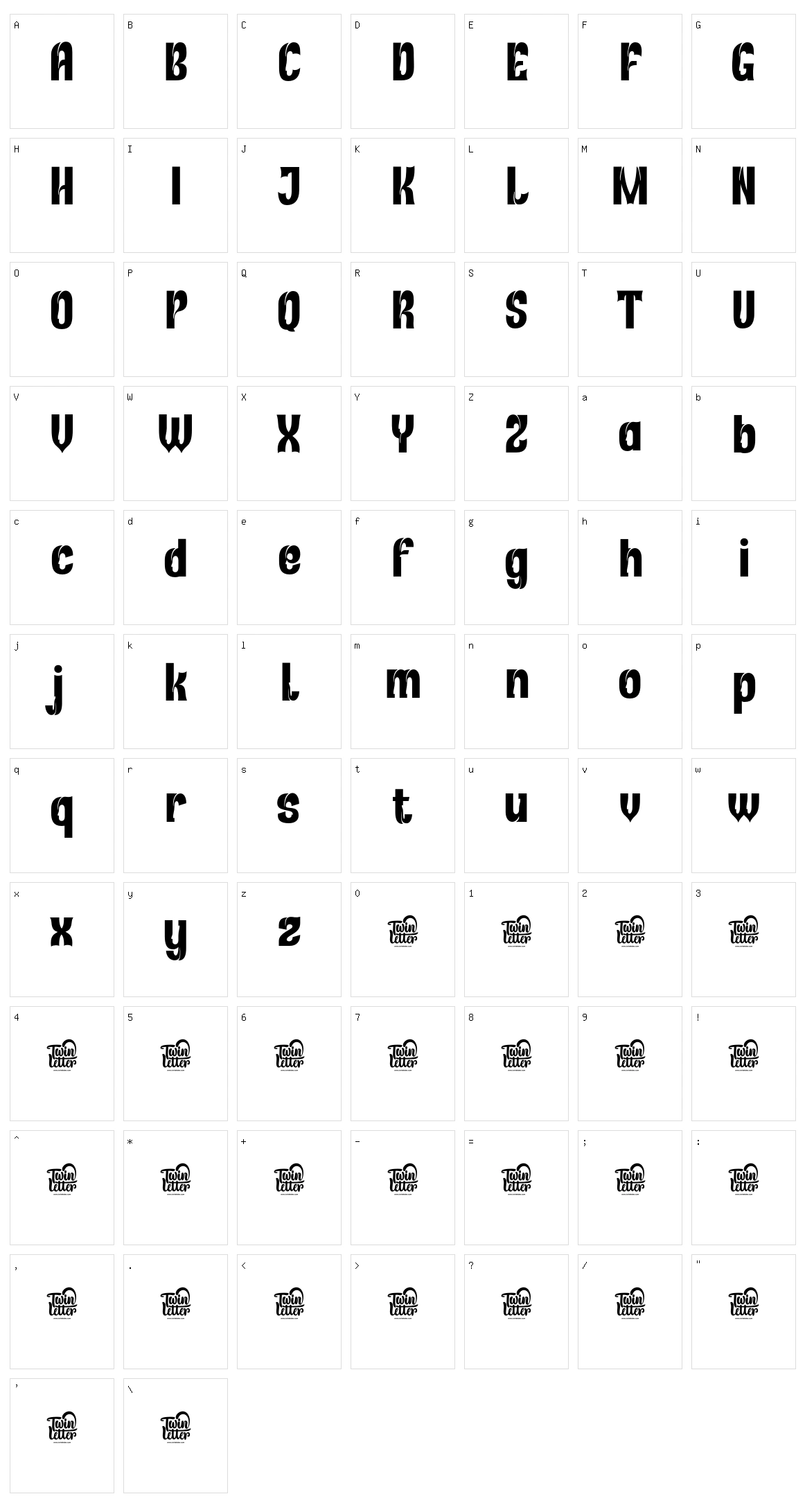
The free font Rekix Black is carefully designed by twinletter, showcasing a thoughtful balance of creativity and usability and falls under the Groovy font style. When you download the ZIP file, it contains only 13.49 KB of font files, making it lightweight and quick to download. Please review the license details below to understand permitted usage and distribution rights. If license information is not available, we recommend using this font for personal projects only or contacting the author directly for commercial usage permissions.